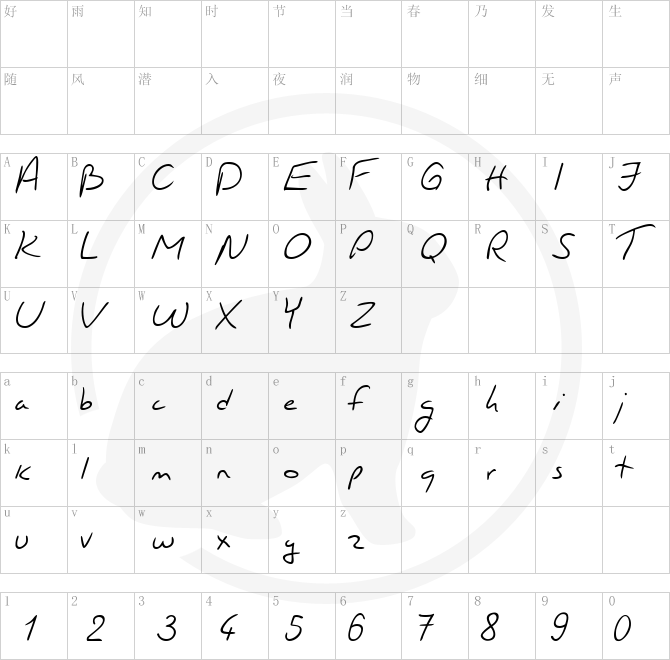
- Font Name:Jacques Handwriting
Jacques-Handwriting.ttf is a very beautiful artistic font, Jacques-Handwriting.ttf is widely used in the design and printing of various books and pictures,Jacques-Handwriting.ttf has a strong visual impact,Jacques-Handwriting.ttf is a commonly used font in newspapers, magazines and books, and is used in posters, e-commerce Poster design, store design, logo design, font design and other fields.Jacques-Handwriting.